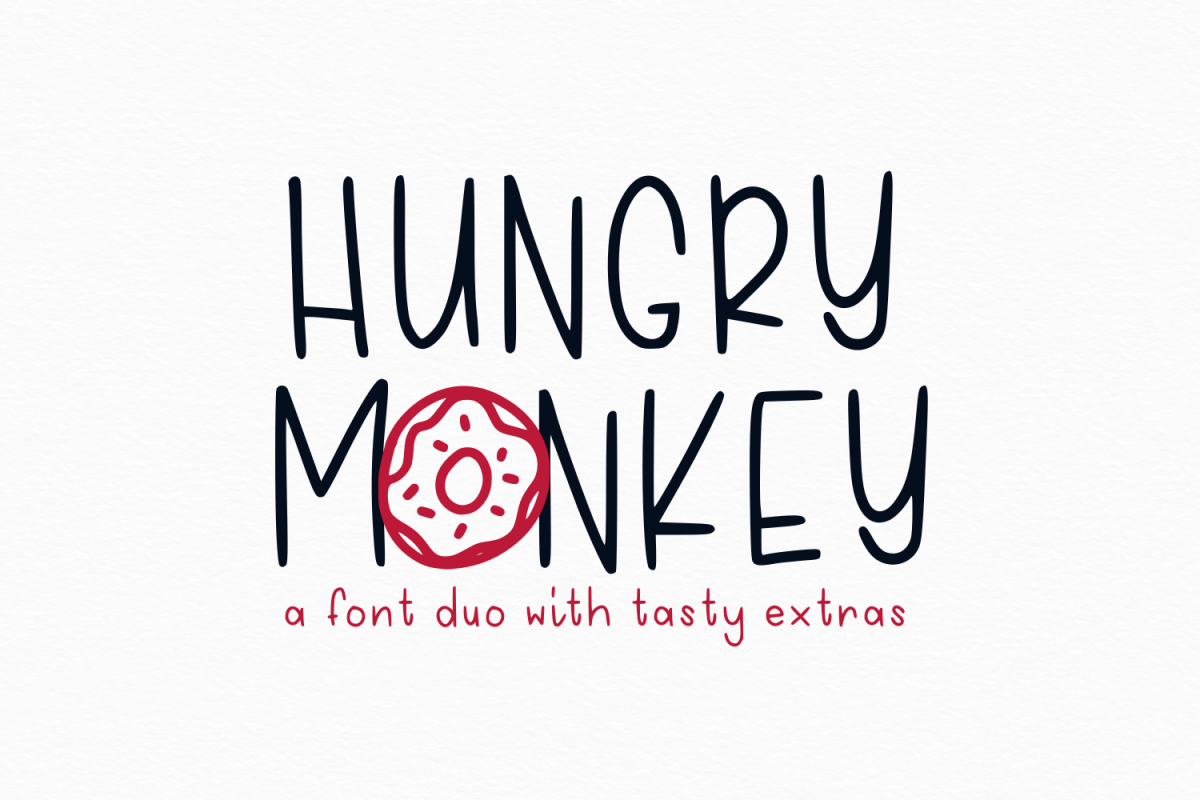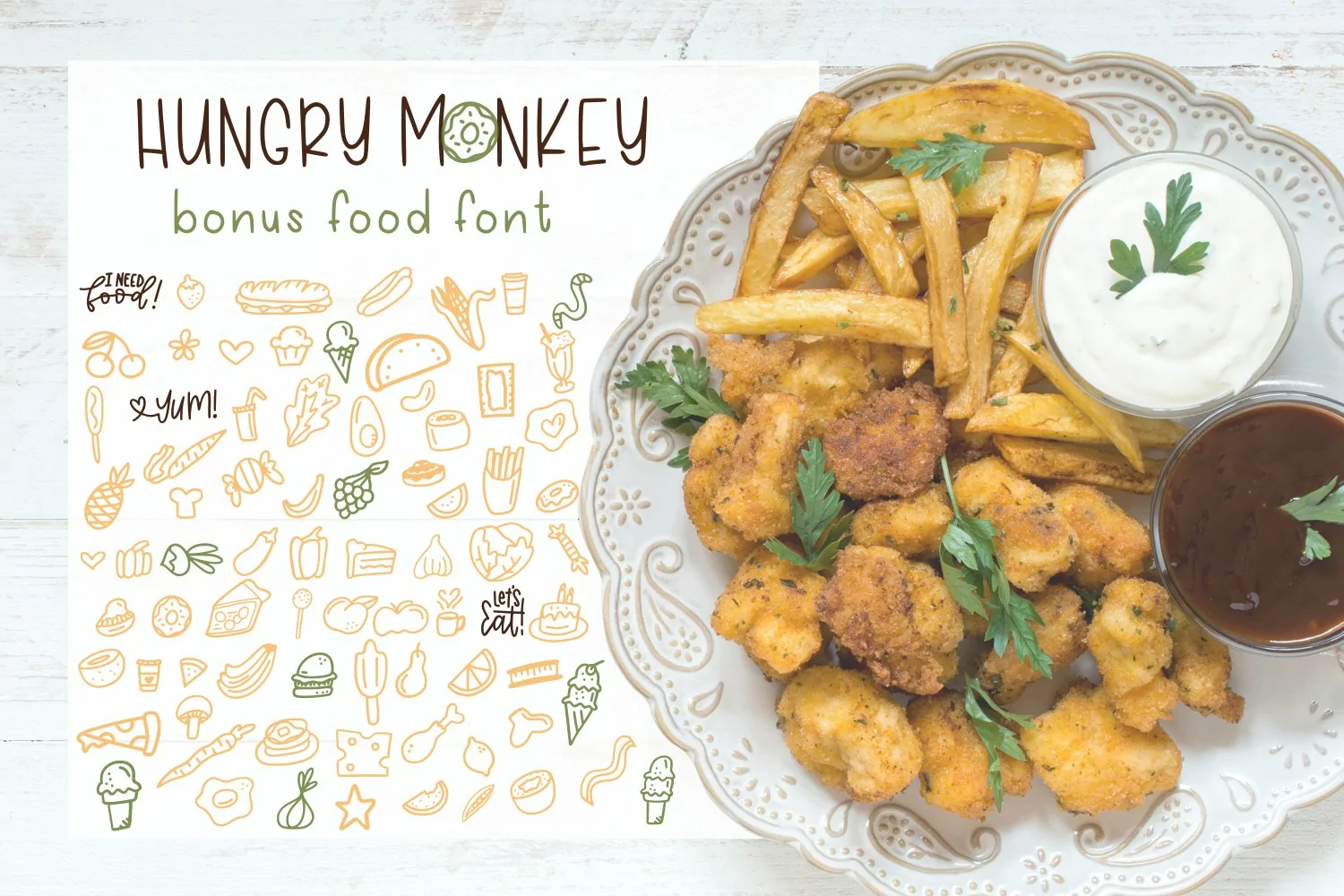
Hungry Monkey - Font Duo
This font pair is perfect for your favorite foodie! It is a hand lettered font, paired with a font stuffed to the brim with hand drawn food doodles. It's a perfect way to embellish your favorite food related designs! Each font comes with OTF/TTF - Also included is a SVG version of the doodled bits, for those using cutting machines. :)